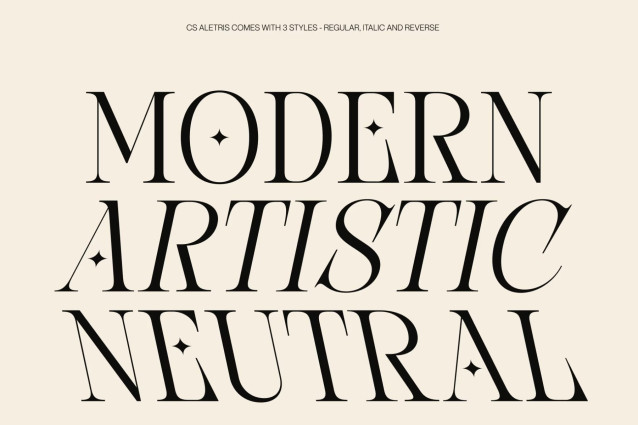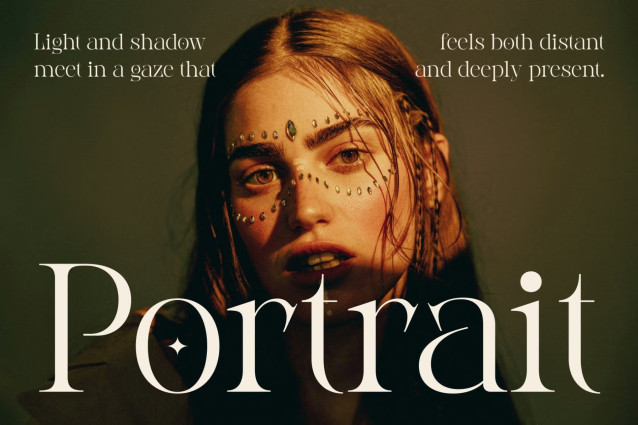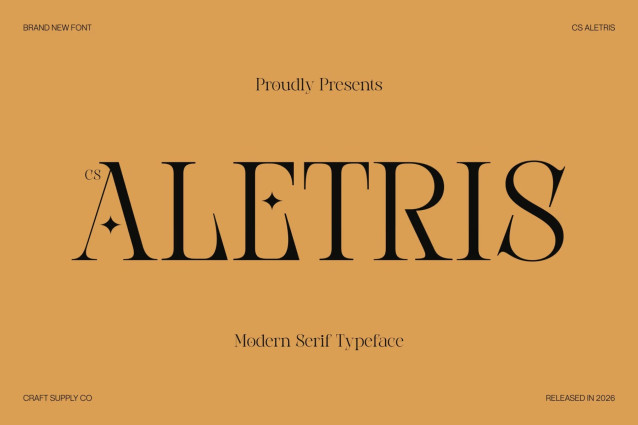
CS Aletris – Modern Serif Font: Where Graceful Serifs Meet Minimalist Elegance
Graceful Long Serifs with Clean Minimal Shapes
This is a modern serif font featuring graceful long serifs and clean minimalist letterforms that create a refined and contemporary visual identity. Its elegant proportions and subtle contrast deliver a sophisticated appearance, balancing timeless serif beauty with modern simplicity. Every character is carefully designed to express clarity, elegance, and effortless style.
Contemporary Design with Timeless Appeal
This font offers a fresh interpretation of classic serif typography. The elongated serifs add a sense of grace and distinction, while the clean, uncluttered forms ensure excellent readability and visual harmony. This combination makes the font versatile enough for both expressive headlines and polished body display text.